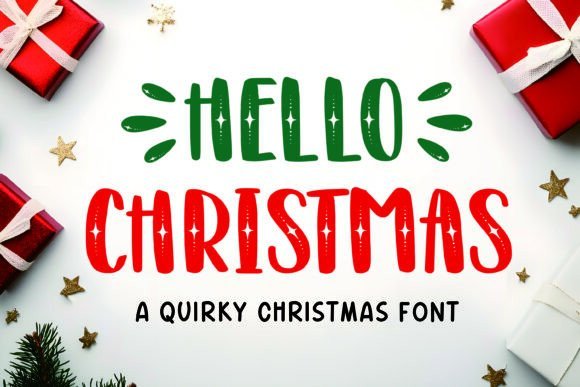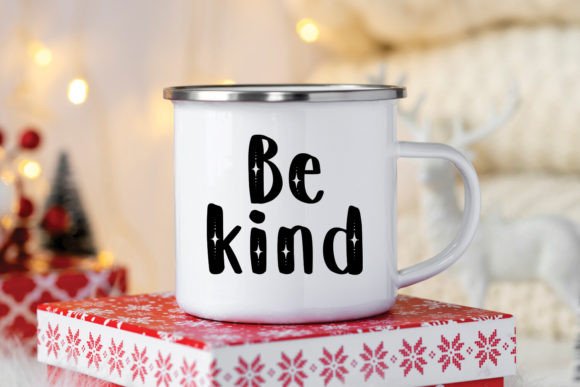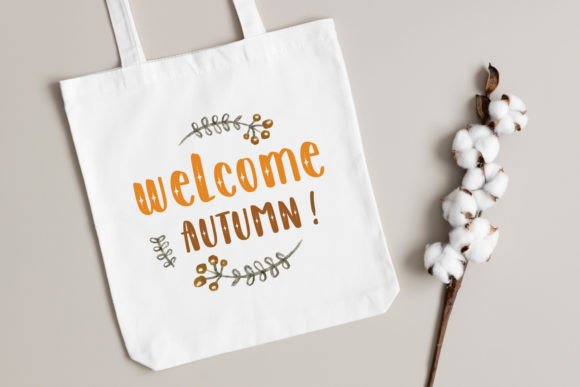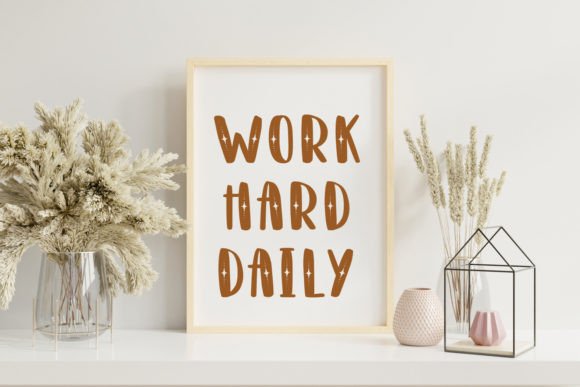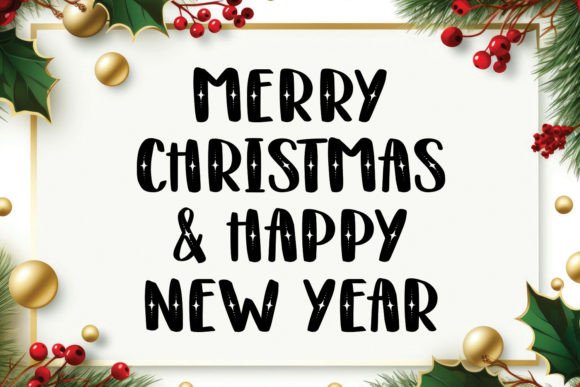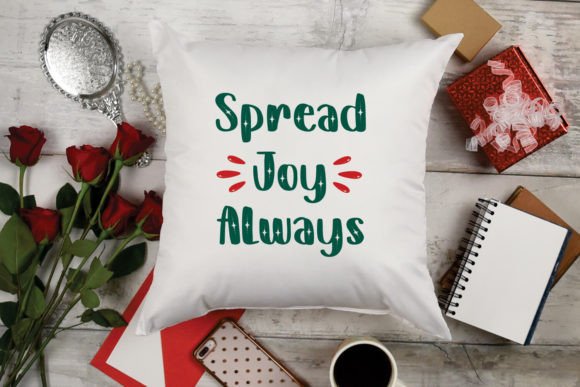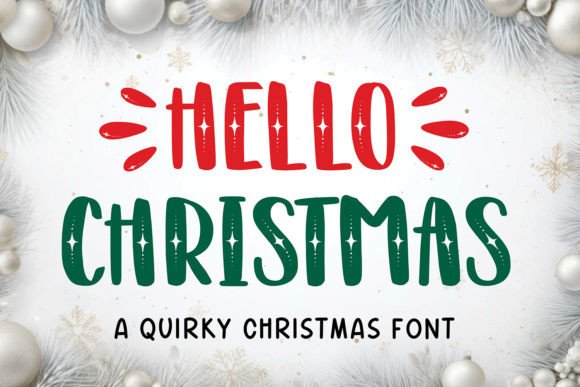
Deck the Halls with Joyful Typography
As the snowflakes start to fall and the festive lights twinkle, I find myself pouring over design ideas to spread holiday cheer. There’s something magical about infusing our projects with the spirit of Christmas – a time for warmth, love, and creativity. And that’s where the Hello Christmas Font comes in – a delightful, whimsical font designed to capture the essence of the holiday season in a cute and playful display.
This enchanting font is a treasure trove for designers looking to add a touch of winter wonderland magic to their projects. With its joyful, hand-drawn feel, the Hello Christmas Font is the perfect addition to greeting cards, social media graphics, and even website designs. Whether you’re a seasoned pro or a crafting newbie, this font is sure to bring a smile to your face and a twinkle to your designs.
Hello Christmas Font Key Features
- Unique Characteristics: The Hello Christmas Font features a unique, hand-drawn design with intricate details and ornaments, perfect for adding a festive touch to holiday designs.
Hello Christmas Font Review
Overall, I was excited to dive into the “Hello Christmas Font” and see what it had to offer. Here are my honest thoughts:
- Fun, festive feel: This font screams Christmas cheer, making it perfect for holiday-themed designs.
- Unique flair: The Hello Christmas Font offers a distinctive look that sets it apart from more traditional fonts.
- Limited versatility: While great for Christmas-themed designs, the font may not be as versatile for other uses.
- May not be suitable for body text: The font’s playful nature may not be ideal for large blocks of text.
- Some character limitations: A few characters, like the ampersand (&), may not render correctly in all contexts.
Overall, I’d say the Hello Christmas Font is a great choice for designers looking to add a festive touch to their holiday projects. While it may have some limitations, its unique flair and fun feel make it a solid addition to any designer’s toolkit.
Tips for Getting the Most Out of the Hello Christmas Font
Use the Hello Christmas Font to add a festive touch to your designs. Pair it with bold colors and simple shapes to create a eye-catching look. Experiment with different font sizes and styles to create visual interest.
The Hello Christmas Font is perfect for:
- Christmas card designs
- Party invitations
- Decorative posters
- Holiday social media graphics Alternatives to Hello Christmas Font